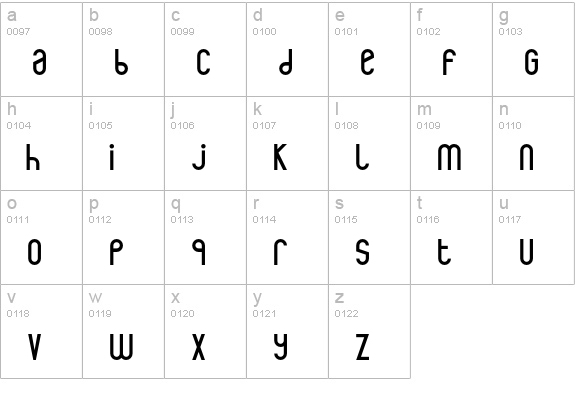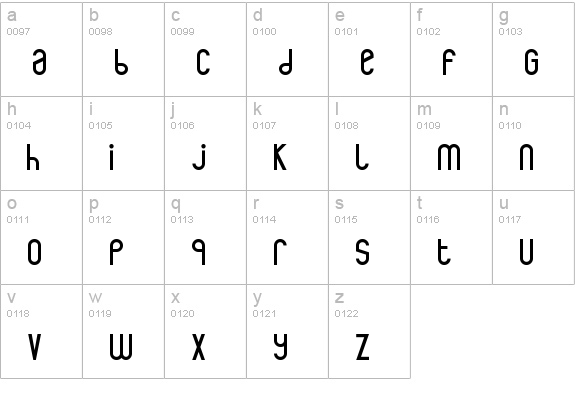
Rothwell Font Details
Rothwell font is a modern and elegant typeface that exudes sophistication and style. With its clean lines and sharp edges, this font is perfect for a wide range of design projects, from branding to editorial design. The versatility of Rothwell font makes it suitable for both digital and print applications, ensuring that your message is always delivered with clarity and impact. What sets Rothwell font apart is not only its sleek design but also its accessibility - it is available for free download at FontsMarket.com. This means that you can easily incorporate this stunning font into your projects without breaking the bank. Whether you're a seasoned designer looking to add a fresh touch to your work or a newcomer eager to experiment with different typefaces, Rothwell font is the perfect choice. Download it today and elevate your design game with this exceptional font.